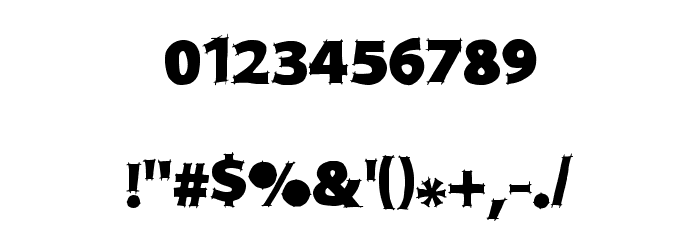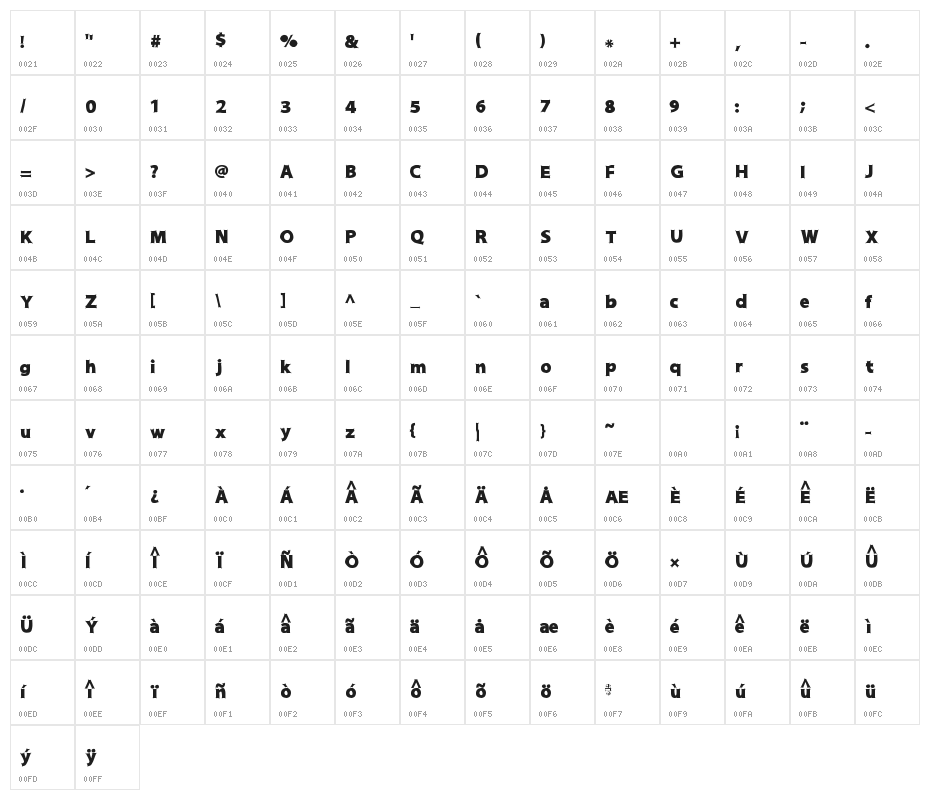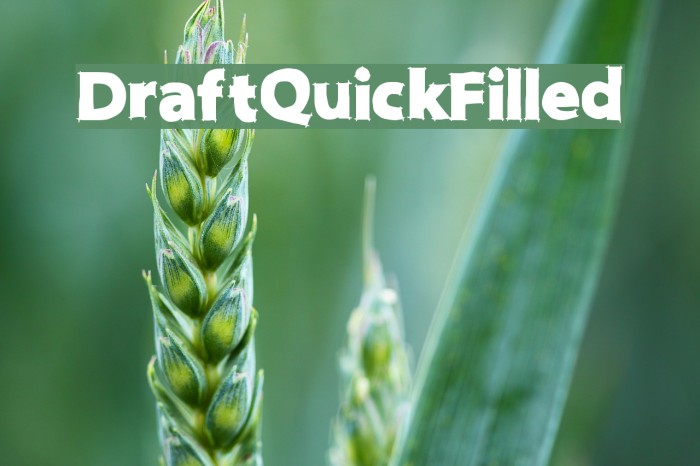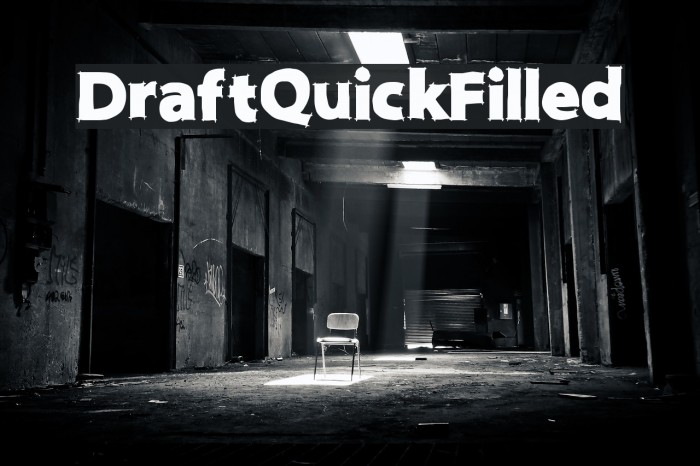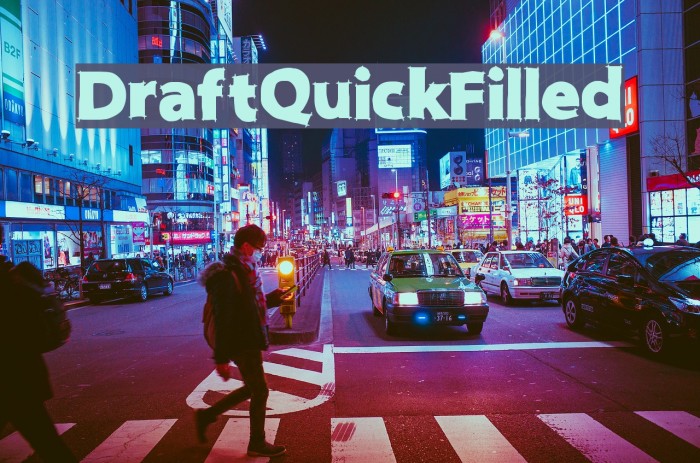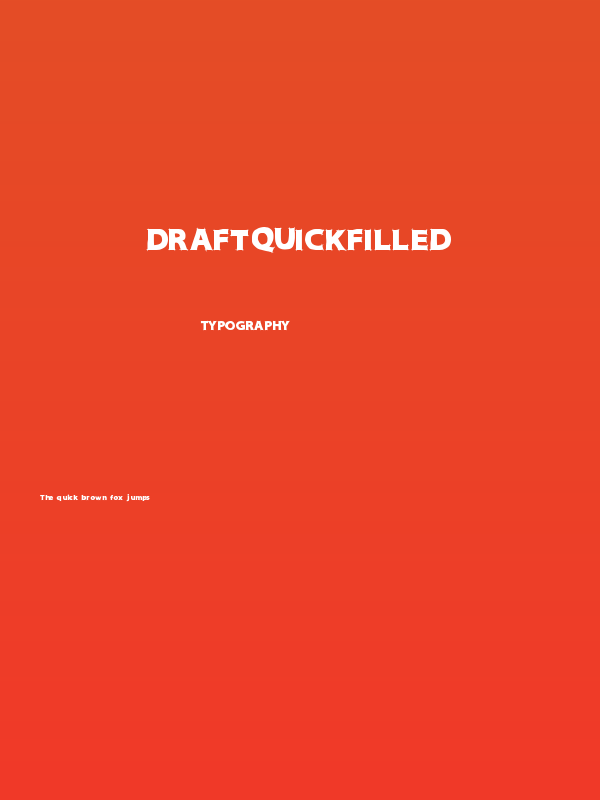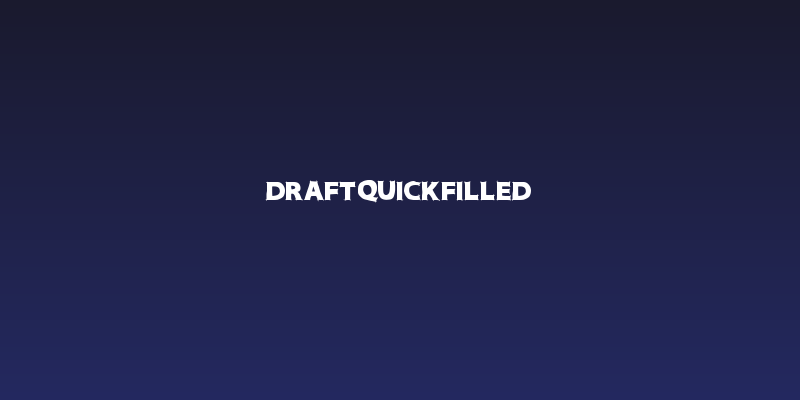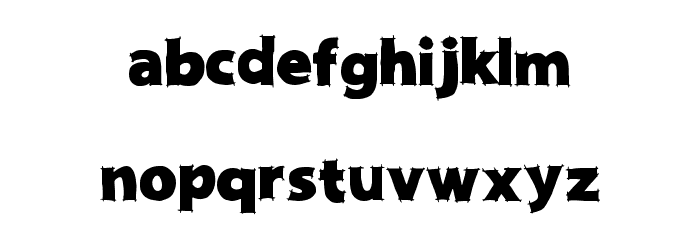
DraftQuickFilled Font
DraftQuickFilled Description
This font features a bold and dynamic style with a playful, slightly distressed appearance. The characters have a unique, jagged edge that gives them a hand-crafted feel, making it stand out in any design. The uppercase and lowercase letters maintain a consistent weight, providing a strong visual impact. The numerals and special characters follow the same design ethos, ensuring uniformity across all text elements. This font is ideal for projects that require a touch of creativity and boldness, such as posters, headlines, and branding materials.
| Proposed Projects | Ideal for posters, headlines, branding, and creative design projects. |